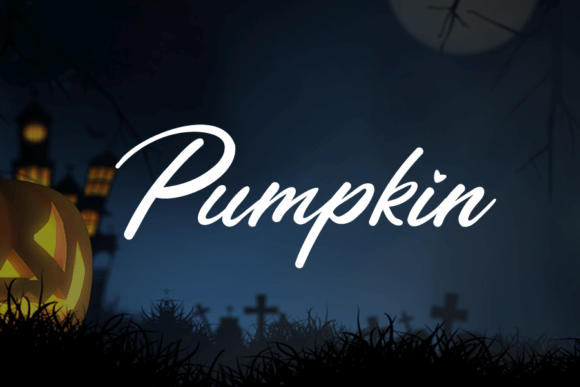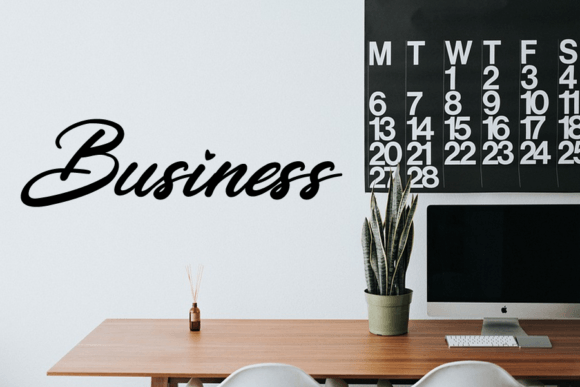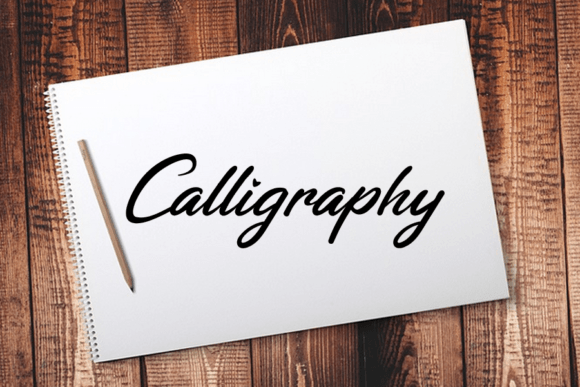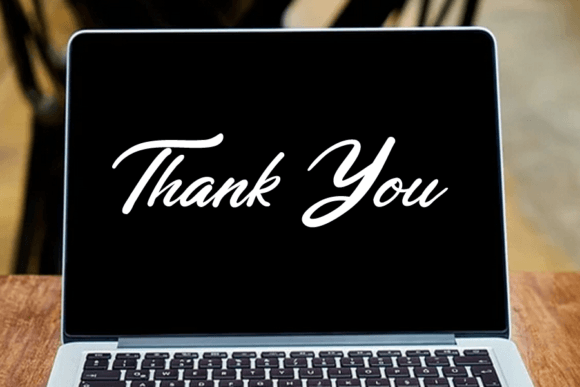
Unveiling the Elegance of Ghost Hunter Font: A Delicate Script Font for Your Designs
In the realm of typography, a font can make or break the aesthetic appeal of a design. For those seeking a touch of elegance and class, Ghost Hunter Font emerges as a lovely and delicate script font that can elevate your creations to new heights. Crafted with precision and care, Ghost Hunter is specifically designed for individuals who crave a beautiful and refreshing look for their designs.
The Birth of Ghost Hunter Font
Ghost Hunter Font was born out of a passion for typography and a desire to create a unique, yet elegant script font. The creators of Ghost Hunter aimed to produce a font that not only stands out due to its aesthetic appeal but also offers versatility and legibility. Whether you’re working on a branding project, a wedding invitation, or a packaging design, Ghost Hunter is poised to add that extra layer of sophistication.
Key Features of Ghost Hunter Font
- Elegant and Delicate: Ghost Hunter boasts an undeniable elegance, making it perfect for designs that require a touch of class and sophistication.
- Script Style: As a script font, Ghost Hunter offers fluid connections between letters, creating a harmonious and visually appealing text.
- Versatile: Its versatility makes it suitable for a wide range of design projects, from digital content to print materials.
- Legible: Despite its delicate nature, Ghost Hunter maintains a high level of legibility, ensuring your message is conveyed clearly.
- Easy to Use: Designed with user-friendliness in mind, Ghost Hunter can be easily integrated into various design software.
Applications of Ghost Hunter Font
The applications of Ghost Hunter Font are vast and varied. Here are a few ideas to get you started:
- Wedding and Event Invitations: Add a touch of elegance to your wedding invitations, save-the-dates, or event posters.
- Branding and Logo Design: Elevate your brand’s typography with a sophisticated and distinctive script font.
- Packaging Design: Stand out on the shelves with beautifully designed packaging that exudes luxury and class.
- Digital Content: Enhance your website, blog, or social media graphics with a font that captures attention and conveys elegance.
Tips for Using Ghost Hunter Font Effectively
To maximize the impact of Ghost Hunter Font in your designs, consider the following tips:
- Pair with Complementary Fonts: Combine Ghost Hunter with sans-serif fonts for contrast and visual interest.
- Adjust Letter Spacing: Fine-tune the letter spacing to ensure optimal legibility and aesthetic appeal.
- Experiment with Colors: While Ghost Hunter looks stunning in black or dark colors, don’t hesitate to experiment with lighter shades or gradients.
- Consider Size and Weight: Play with different sizes and weights to create hierarchy and emphasis in your design.
Ghost Hunter Font is a beautiful addition to the world of typography, offering designers and crafters a delicate yet elegant script font that can transform their designs. With its versatile nature, ease of use, and stunning aesthetic appeal, Ghost Hunter is poised to become a favorite among those seeking to add a touch of class and sophistication to their work. Whether you’re a seasoned designer or a crafting enthusiast, Ghost Hunter Font invites you to explore new possibilities in your creative projects.